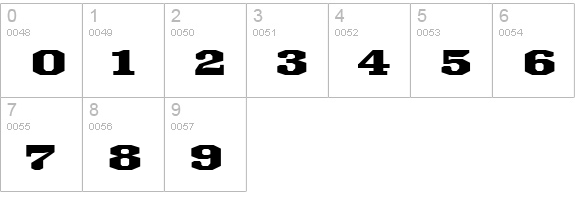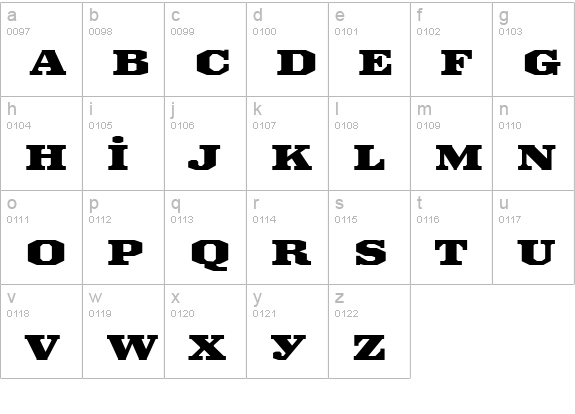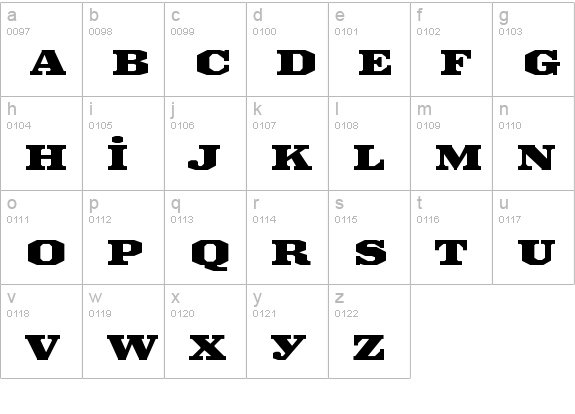
Anchorage Font Details
Anchorage font is a modern and elegant typeface that exudes sophistication and style. With its clean lines and timeless appeal, Anchorage is perfect for a wide range of design projects, from branding to editorial design. Its versatility allows it to be used in both headings and body text, making it a go-to choice for designers looking for a reliable and beautiful font. What makes Anchorage font even more appealing is that it is completely free to download at FontsMarket.com. This means that you can access this high-quality font without any cost, making it a valuable addition to your font library. Don't miss out on the opportunity to enhance your designs with the stunning Anchorage font, available for free at FontsMarket.com.